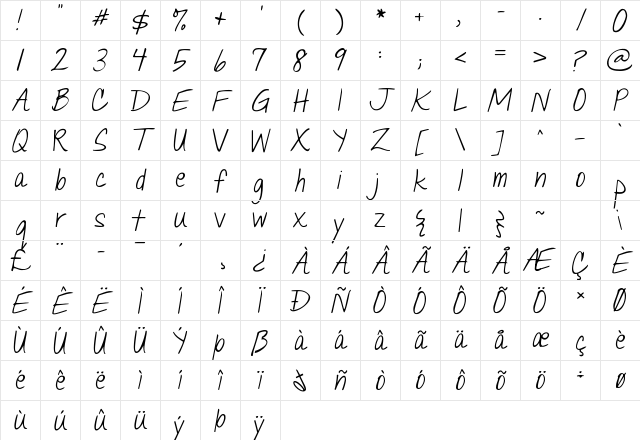
Janda Quick Note Regular
Foundry: Kimberly Geswein
Designer: Kimberly Geswein
Design Context for Janda Quick Note
Janda Quick Note is a composed and adaptable typeface that performs quietly and consistently across a wide range of design contexts.